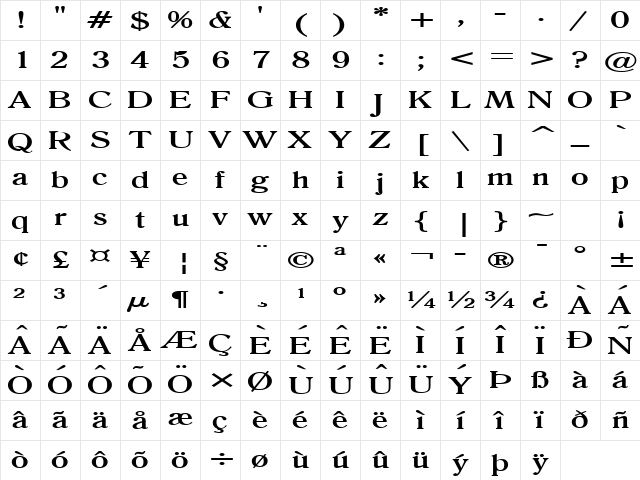
Roomy Extended Bold
Roomy Extended Family
Complete Roomy Extended Bold glyph index. Displaying only characters natively supported by Roomy Extended Bold font.
Design Context for Roomy Extended
Roomy Extended is a composed and adaptable typeface that performs quietly and consistently across a wide range of design contexts. Its bold stroke weight gives it real presence on the page.